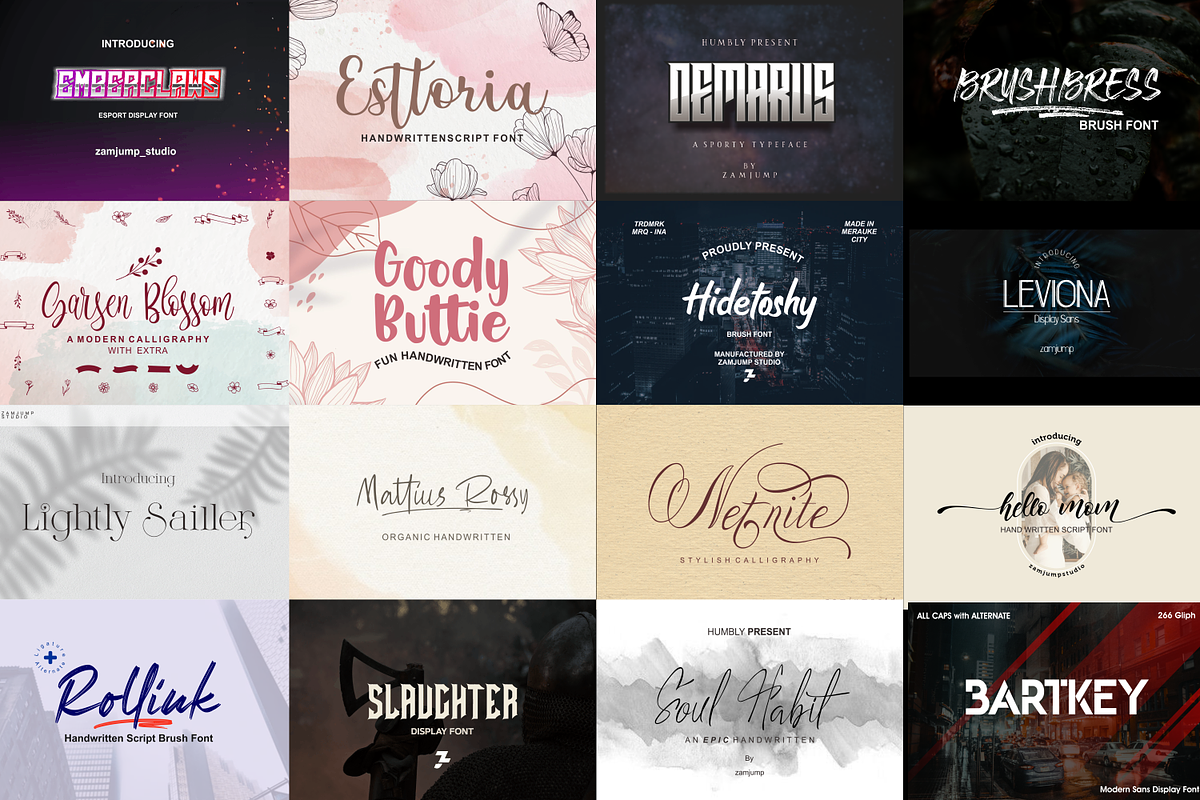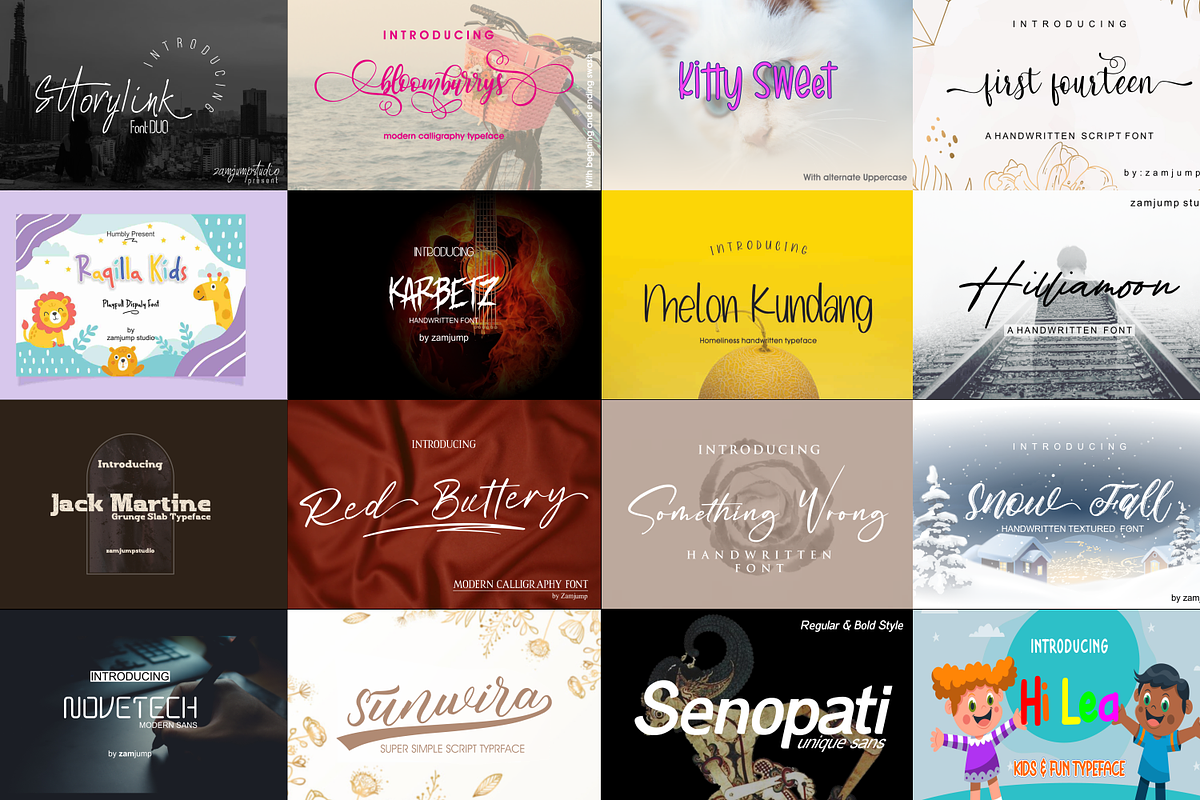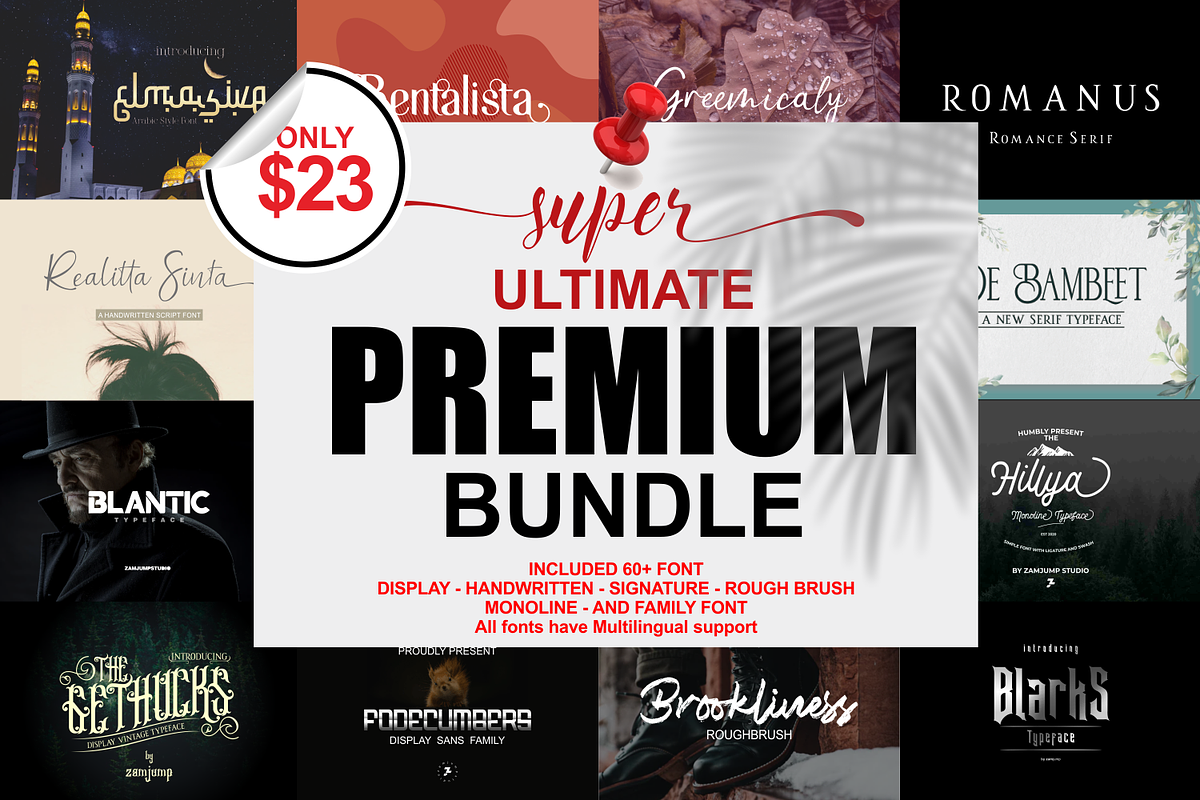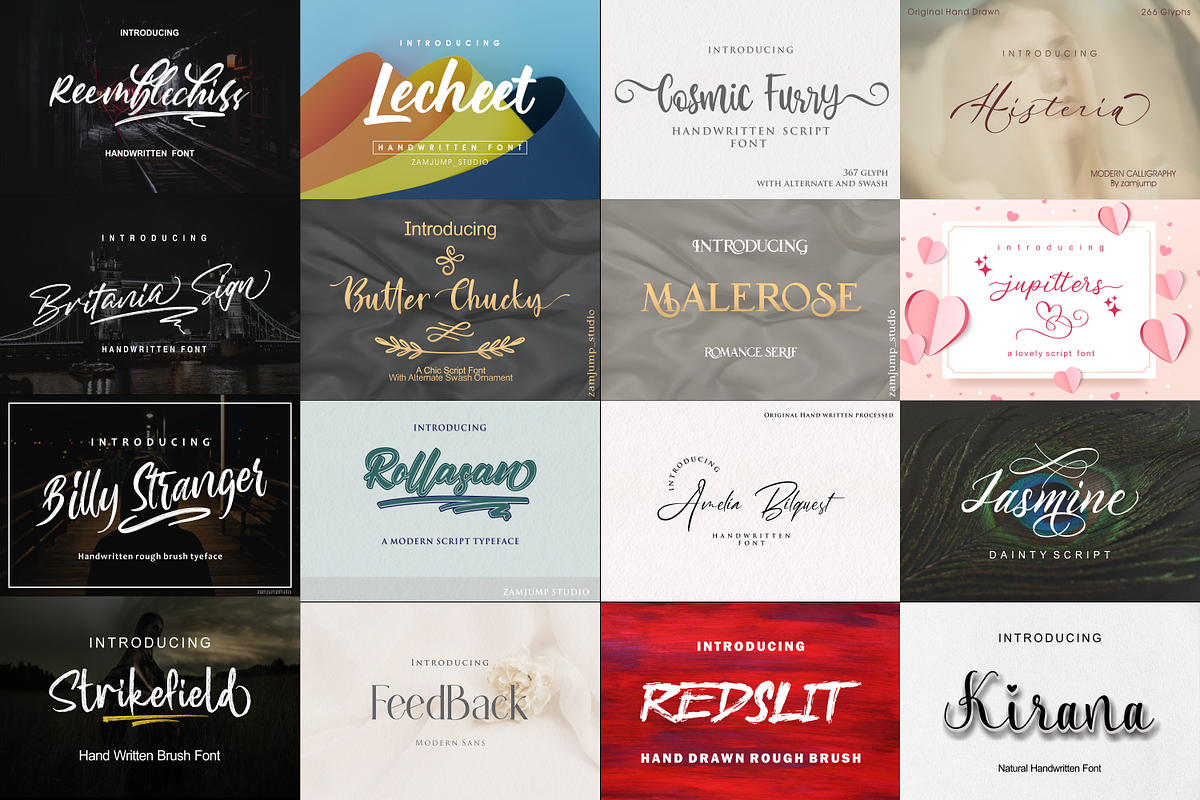
Super Ultimate Premium Bundle Font
SUPER ULTIMATE PREIUM BUNDLE This bundle includes a handpicked selection of fonts, perfect for your farmhouse and country designs! Includes NEW fonts!